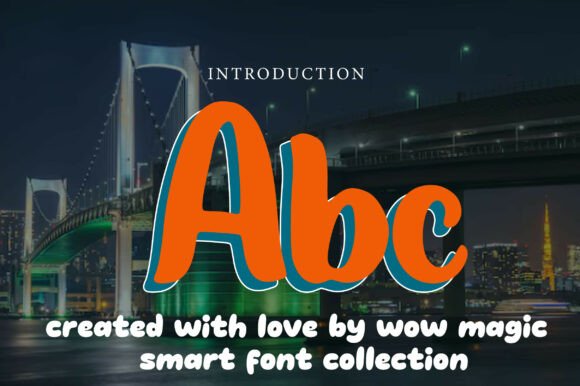
Introduction to Noob Font
Noob – Cute Bold Bubble Display Font Noob is a cute, bold, and playful bubble display font perfect for kids designs, gaming graphics, branding, packaging, posters, and fun creative projects.
Whether you are creating kids branding, gaming graphics, toy packaging, birthday invitations, posters, social media content, or fun logo designs, this font helps your text stand out in a charming and expressive way .
Key Features of Noob Font
Why Choose Noob Font?
Noob Font offers exceptional quality and versatility, making it a valuable addition to your design toolkit. Whether you’re creating for personal projects or commercial use, Noob Font delivers professional results.